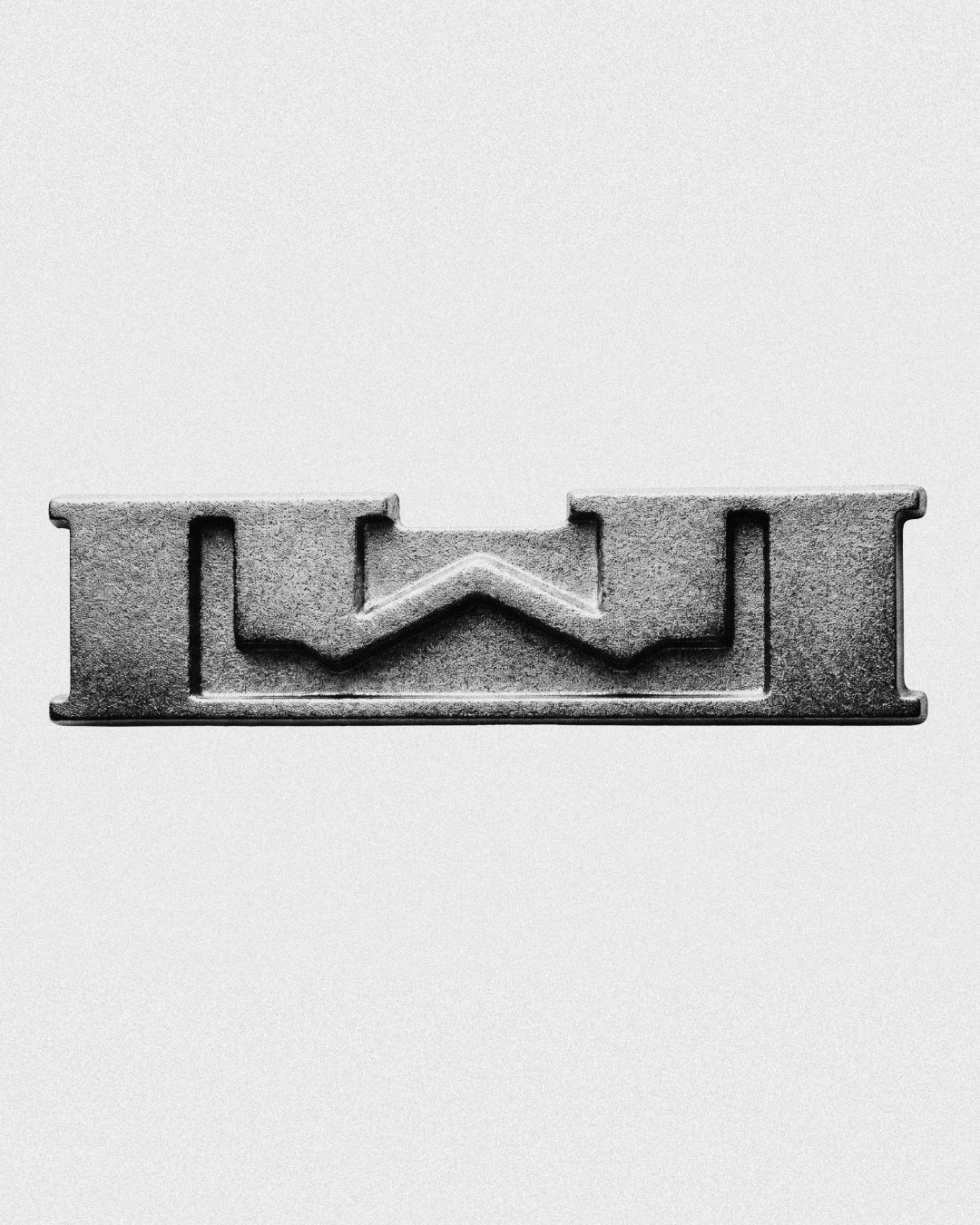
The bespoke typeface behind London fashion label Linen White
Linen White is a contemporary fashion brand founded in London in 2025. London studio BD85BD85 worked with the brand from strategy through to identity, shaping a clear and distinctive voice for its launch.
As a new name in fashion, a strong first impression mattered. BD85BD85 drew a bespoke typeface for Linen White, used mainly across the logotype. The lettering is edgy, minimal and confident, giving the brand a recognisable character of its own.
The identity was built to work closely with the product, carrying the same attitude across the brand’s visual language — from apparel labelling and hangtags through to packaging, stationery and retail bags.